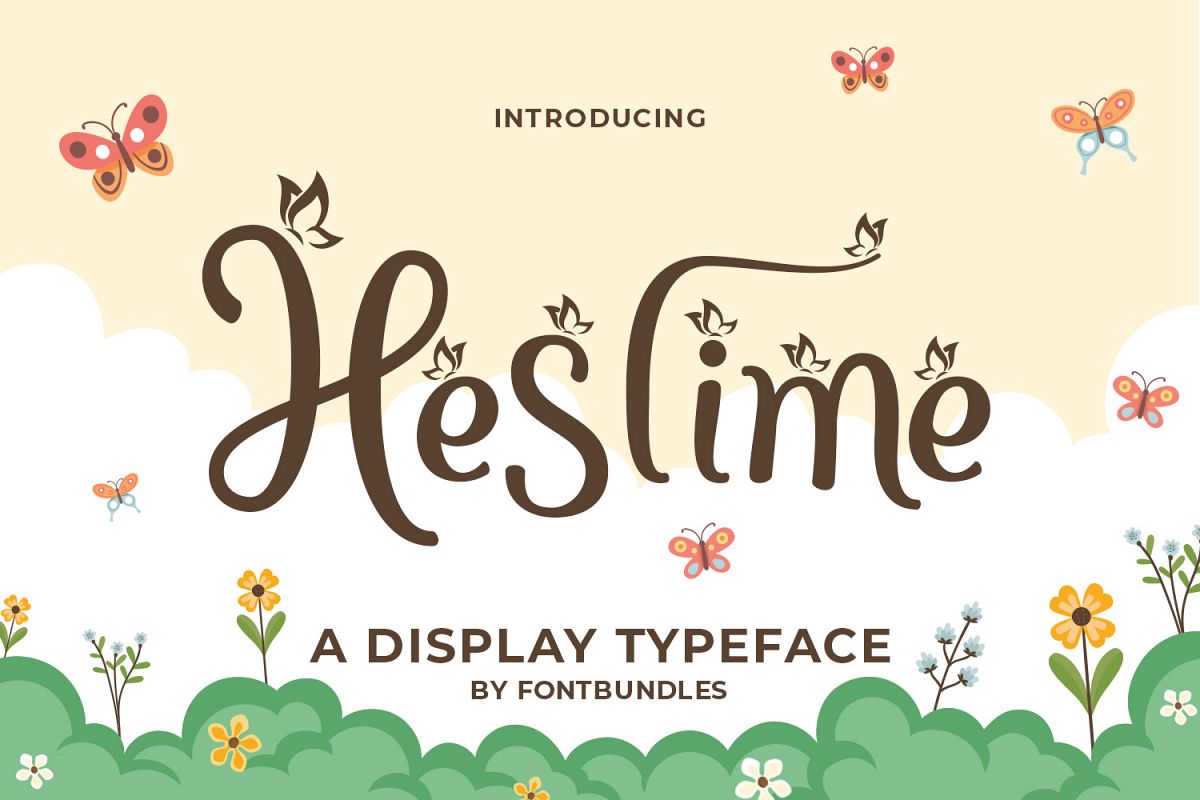
Heslime is a fancy display typeface with a butterfly accent. Perfect for poster, gift card, branding, logo, badges, quotes, florist needs and many more.